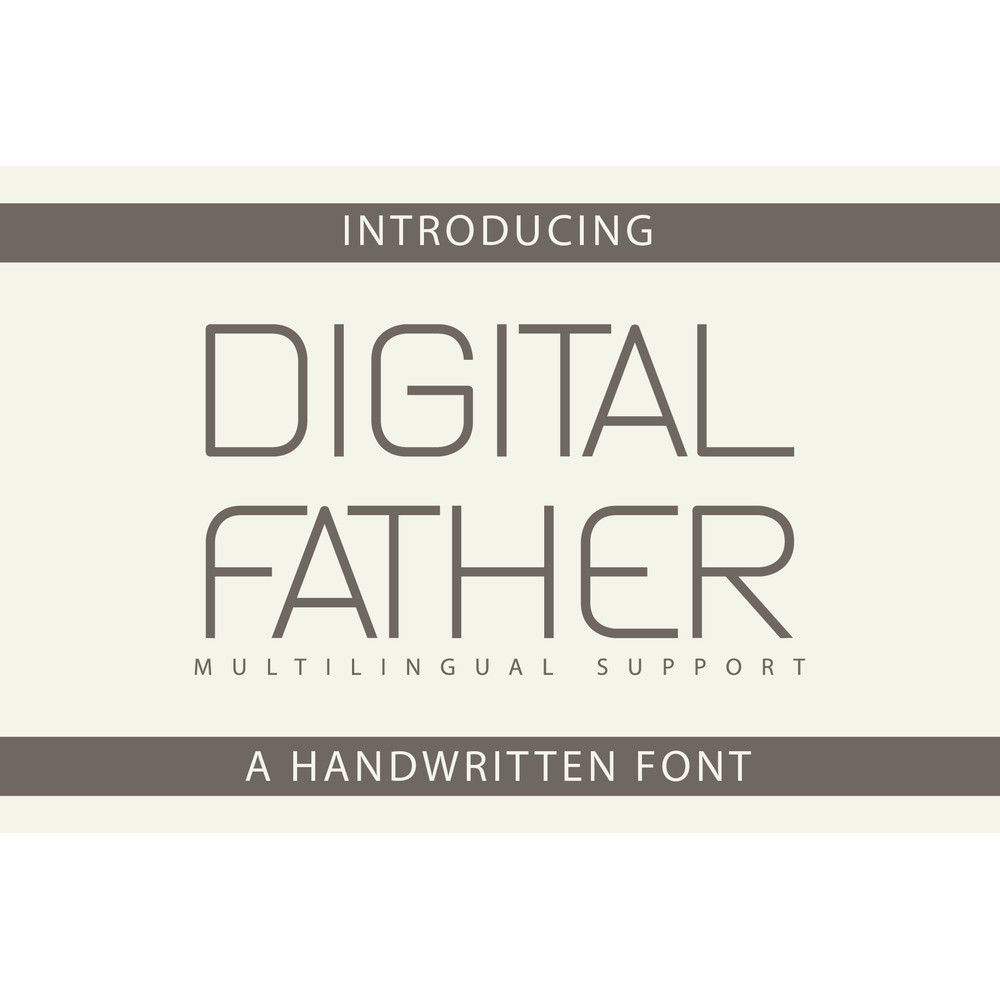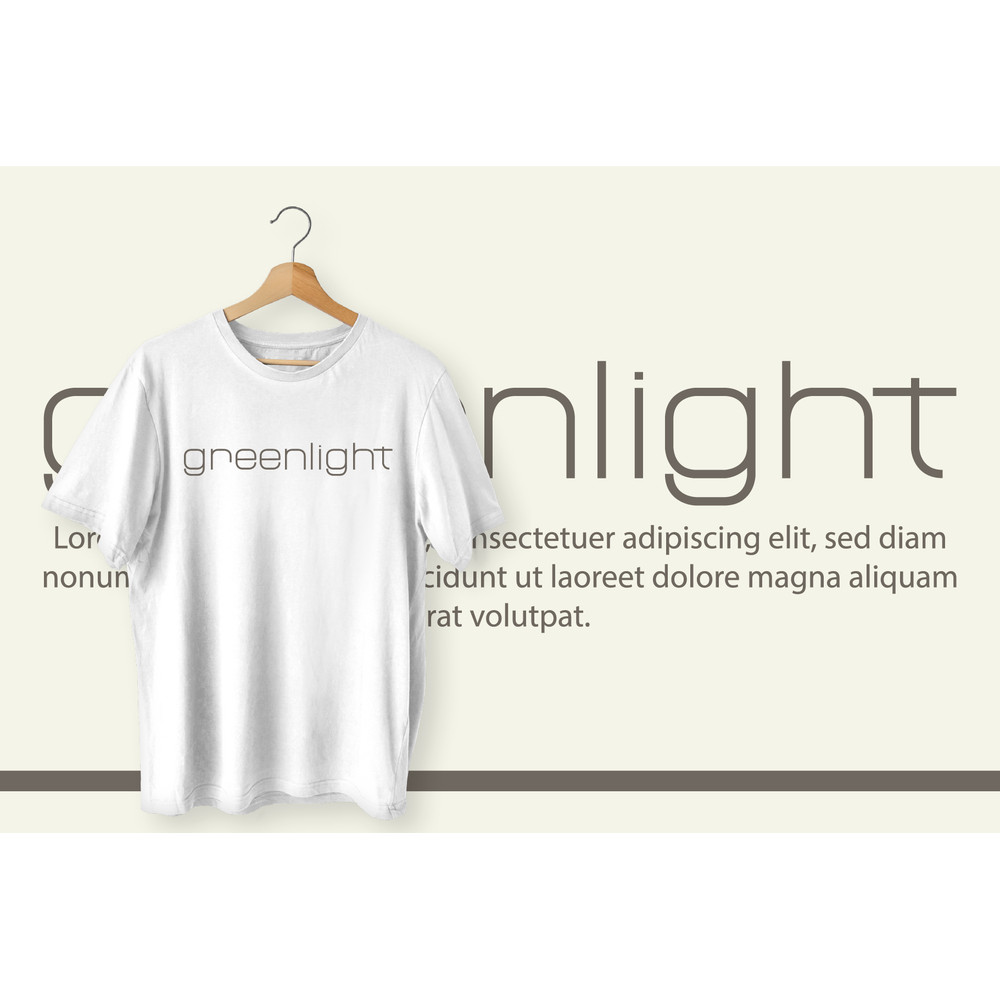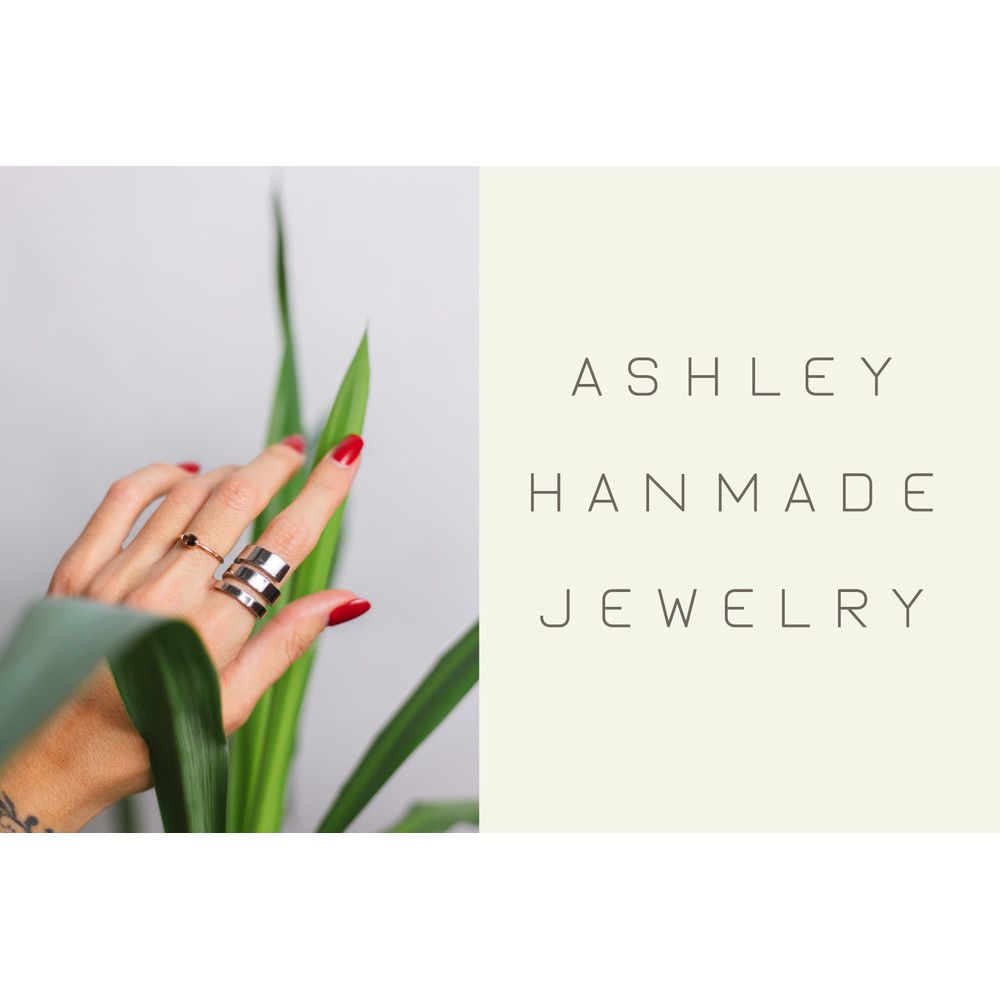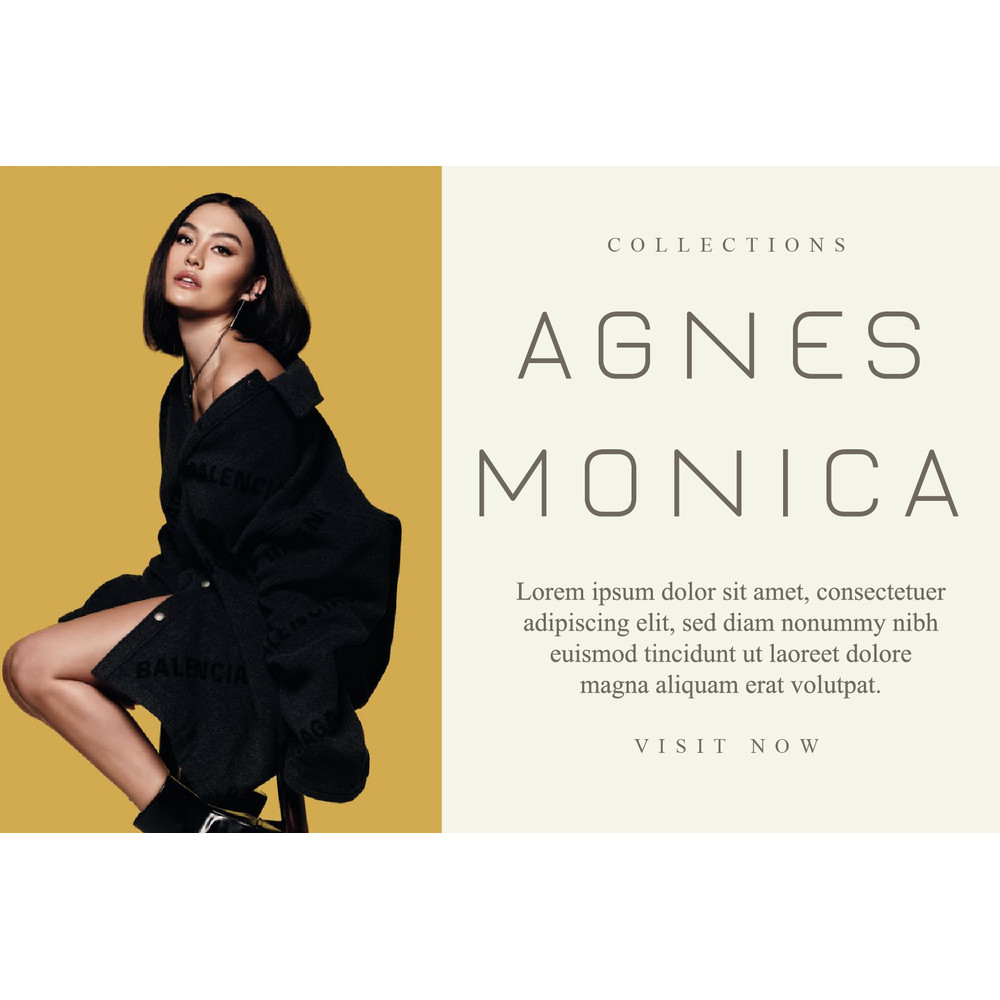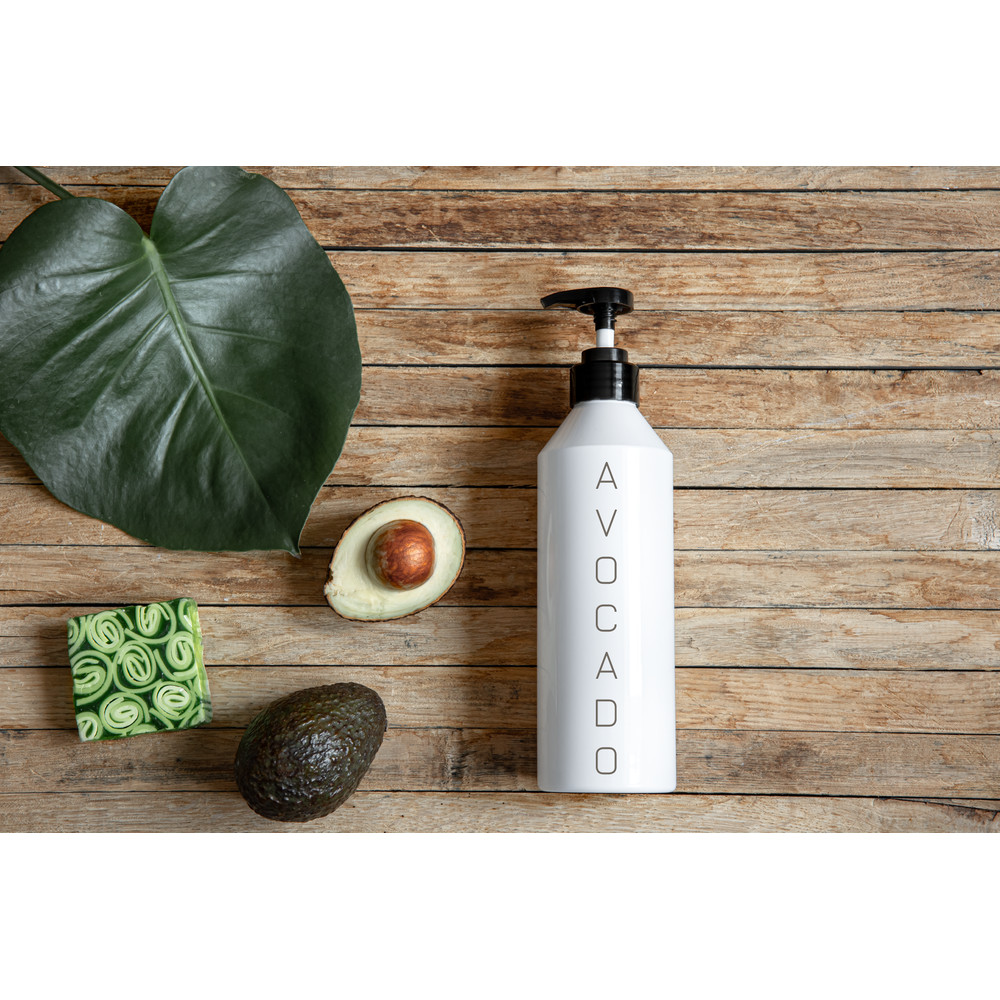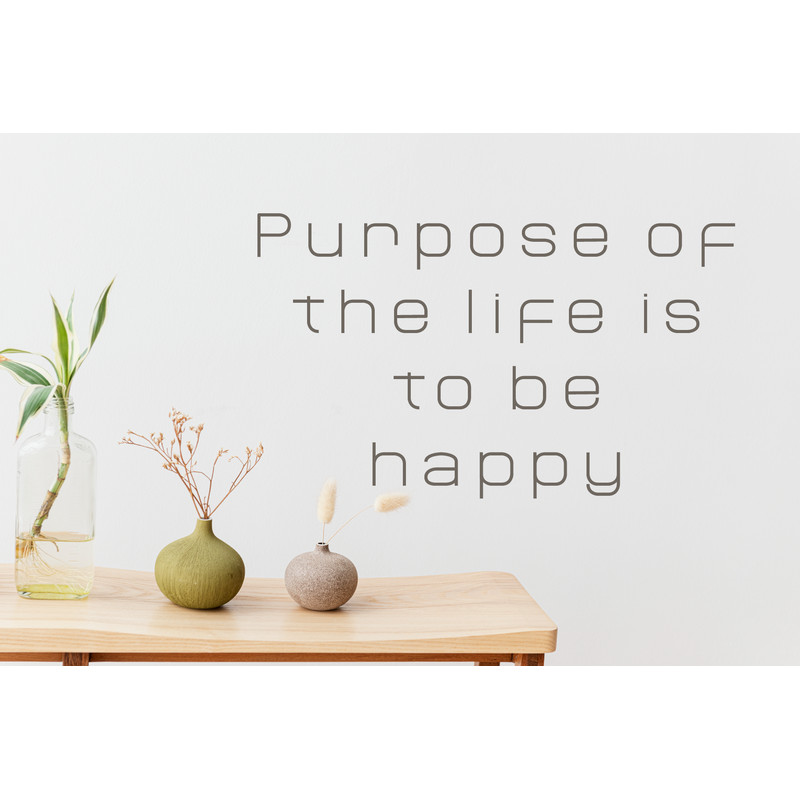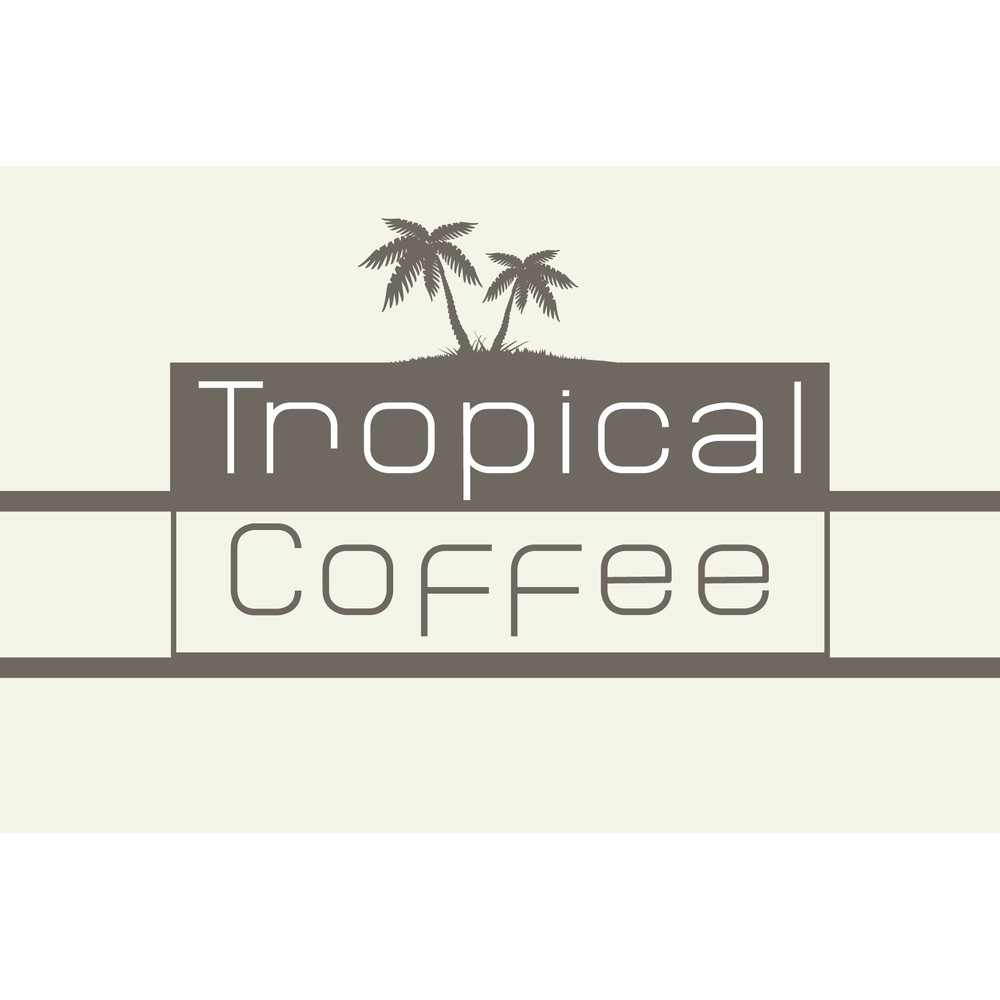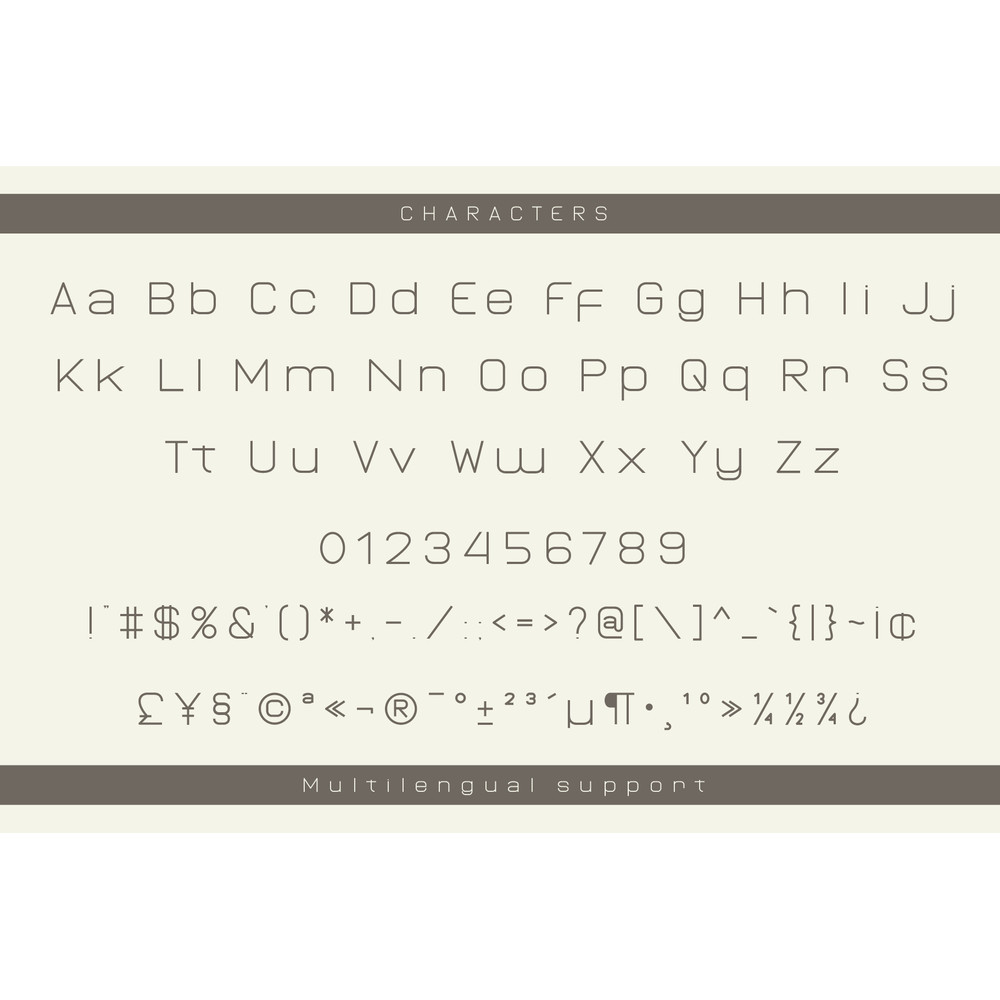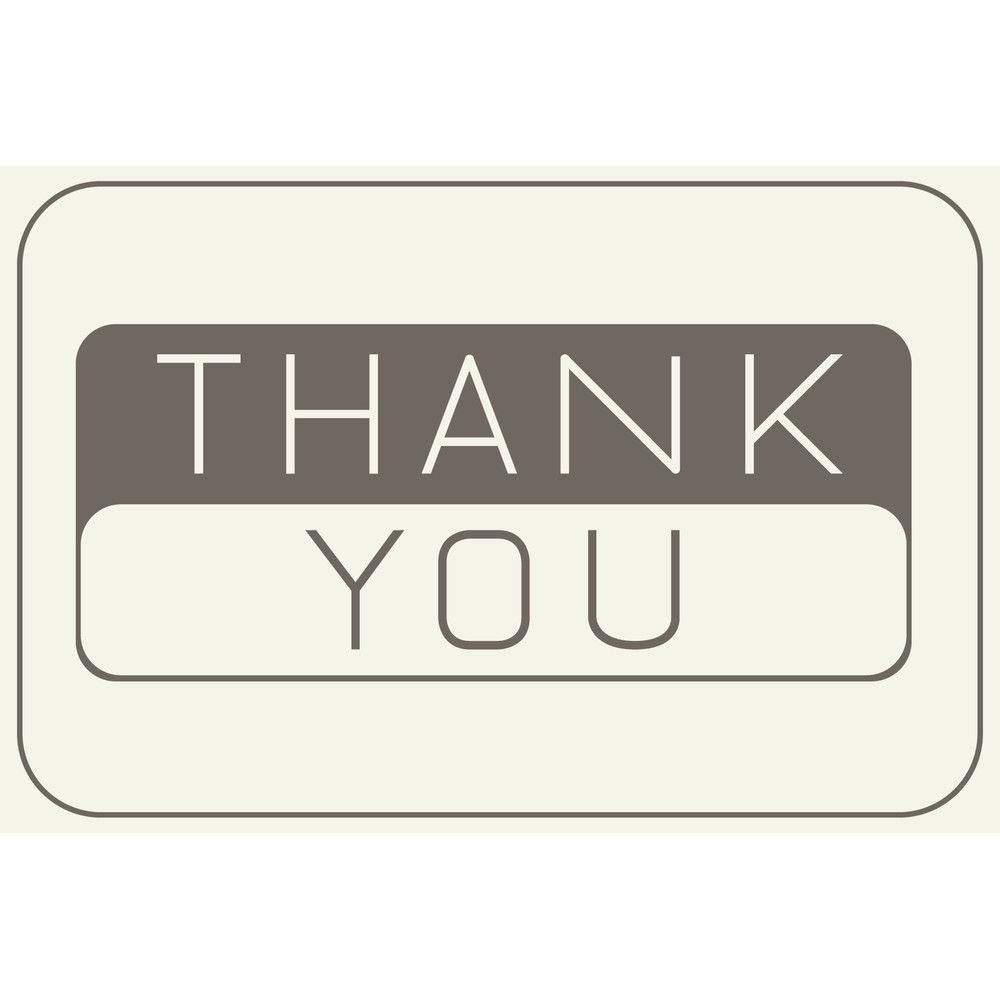
DIgital Father Font
Digital Father is a simple, neat handwritten font, perfect for digital note-taking. You can use this font in various projects – blog posts, logos, branding, digital planners, invitations, greeting cards, planners, photo albums, decorations, and much more.